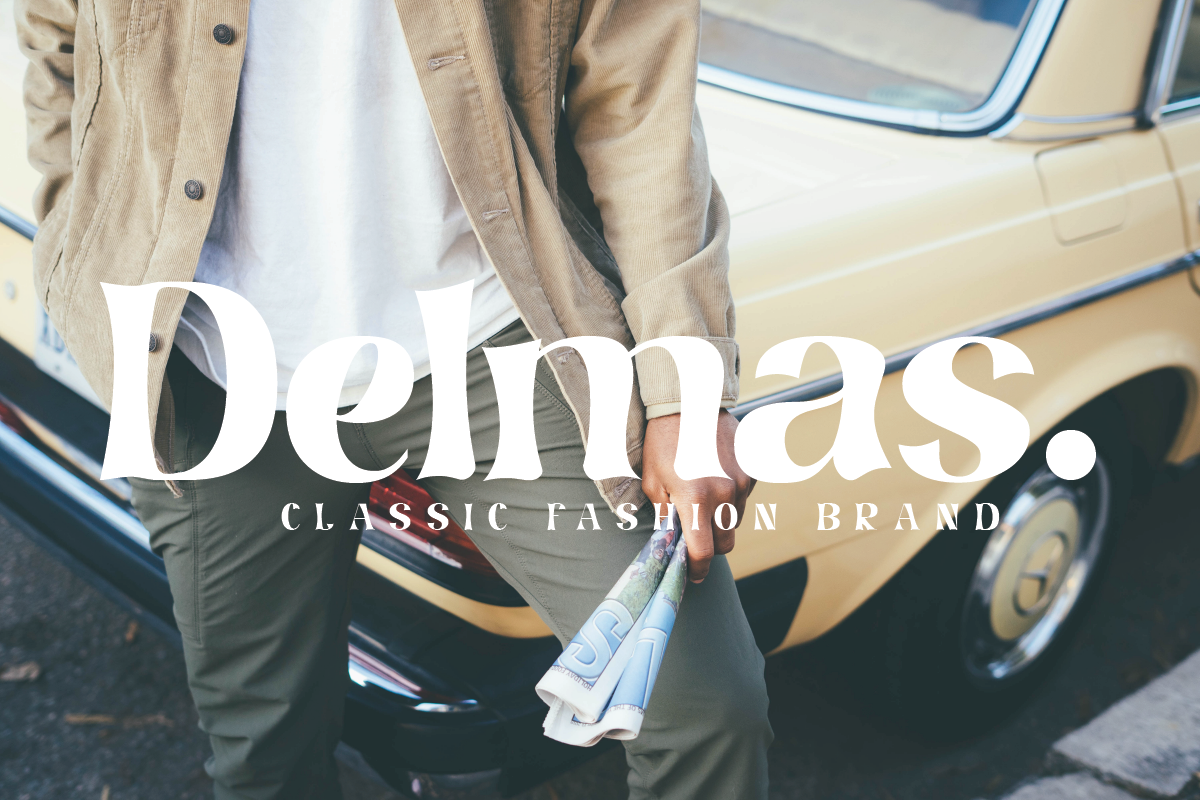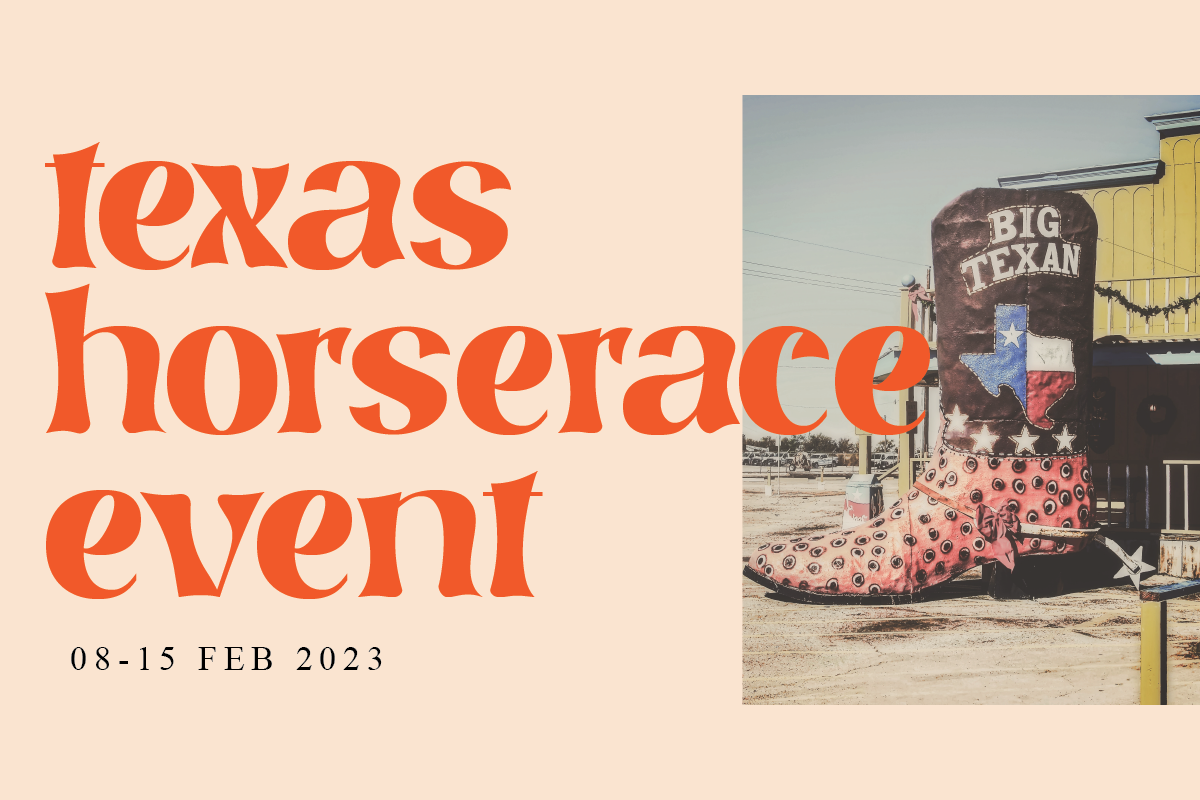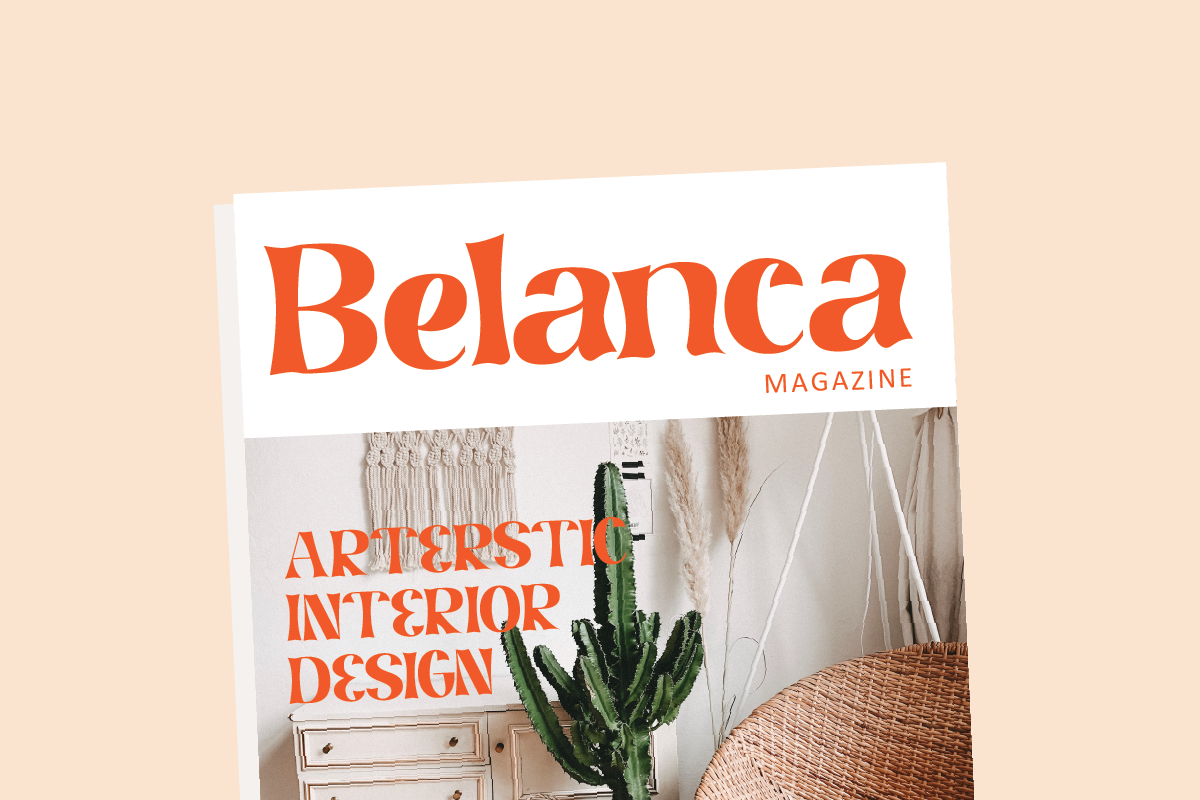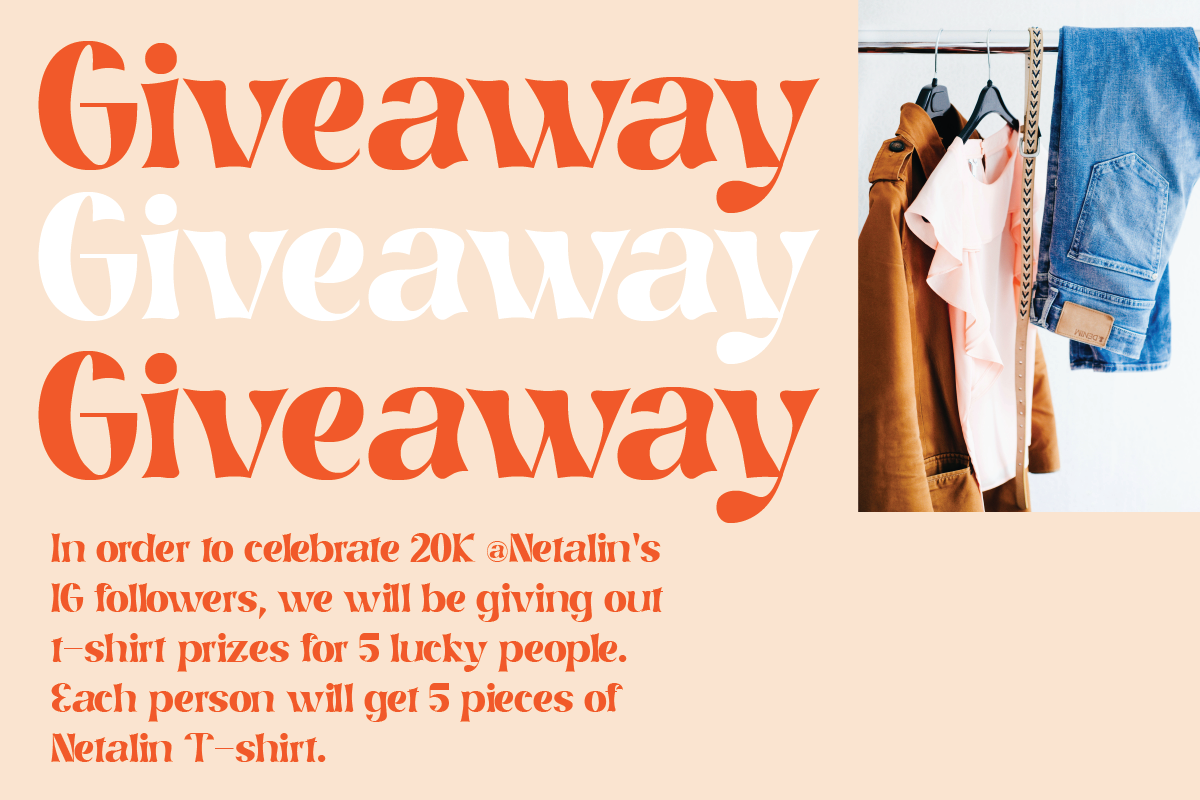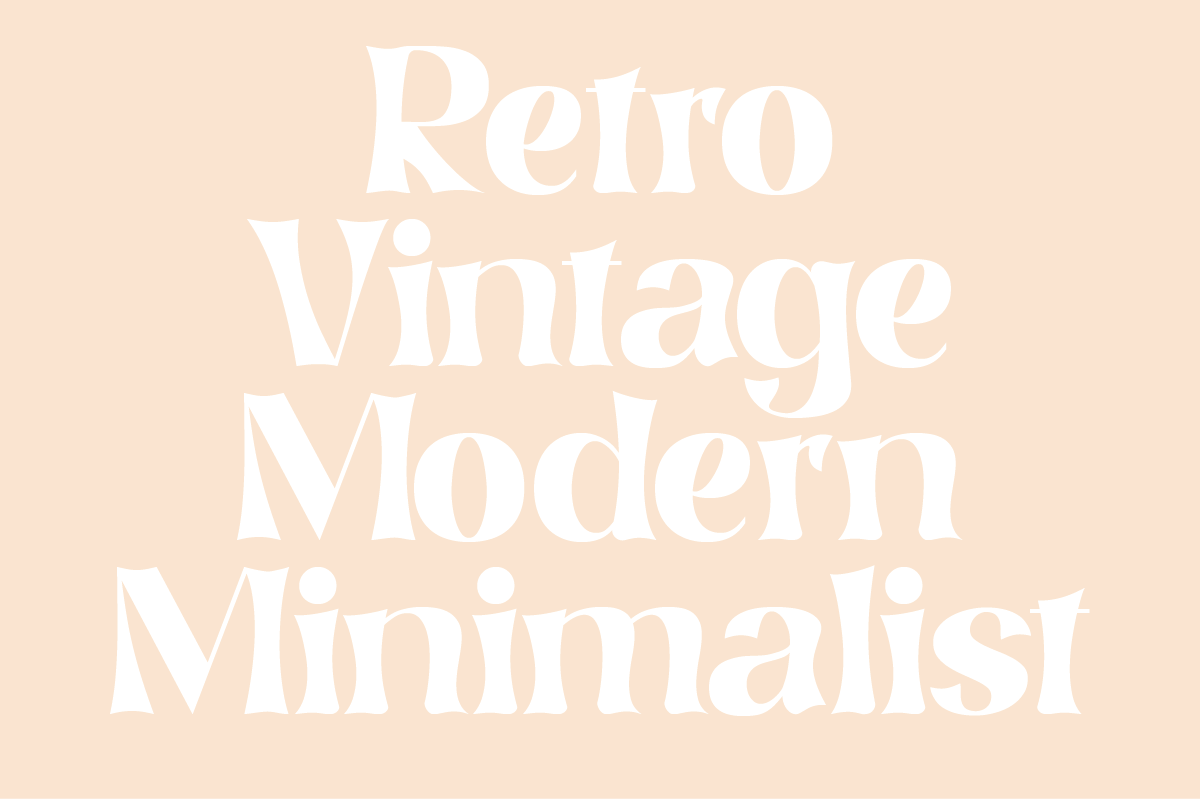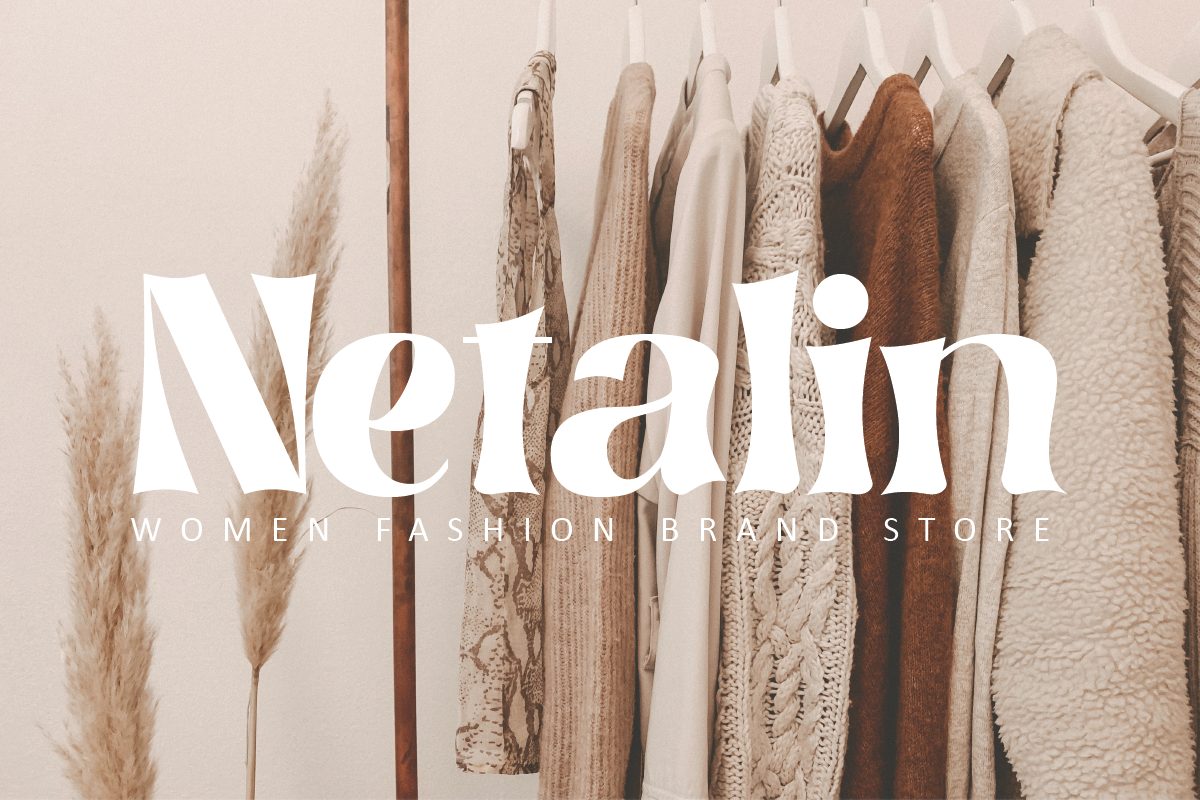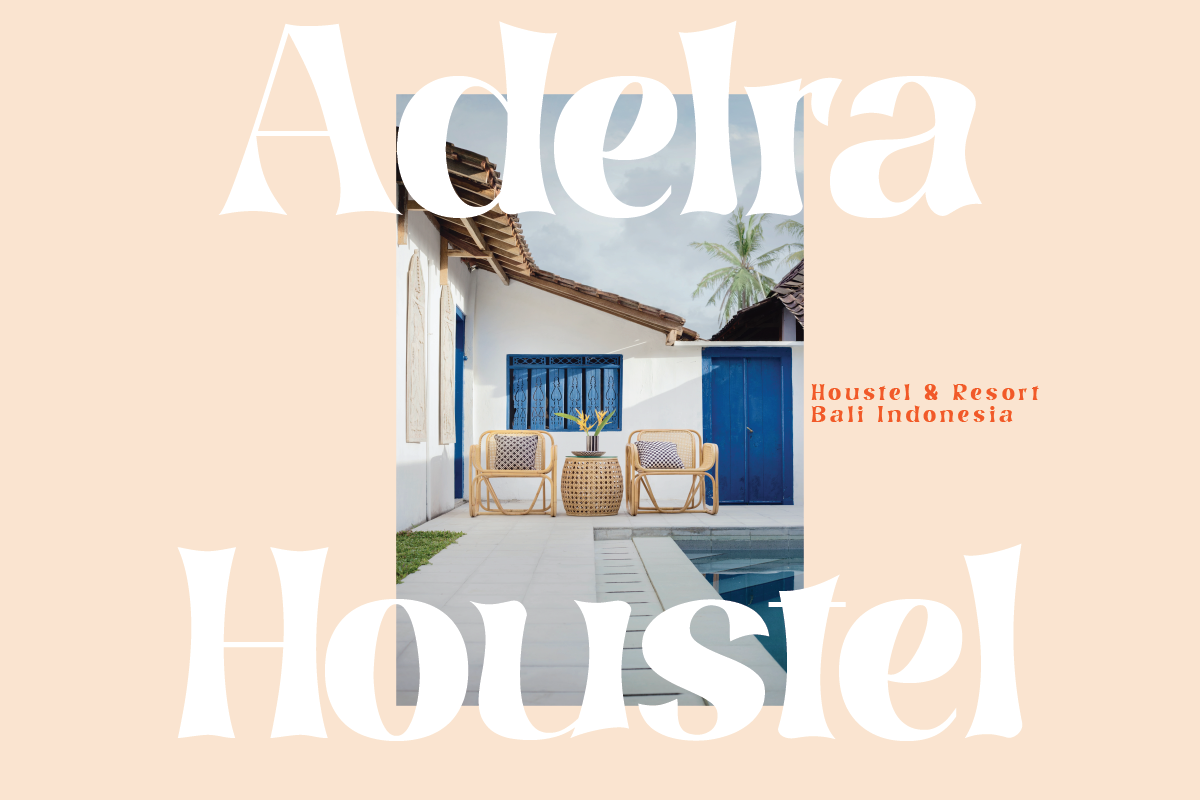
Cydnel
Cydnel Modern Vintage Font, special glyphs, ornament and multilingual support. It's a very versatile font that works great in large and small sizes. Perfect for editorial projects, Logo design, Clothing Branding, product packaging, magazine headers, or simply as a stylish text overlay to any background image.